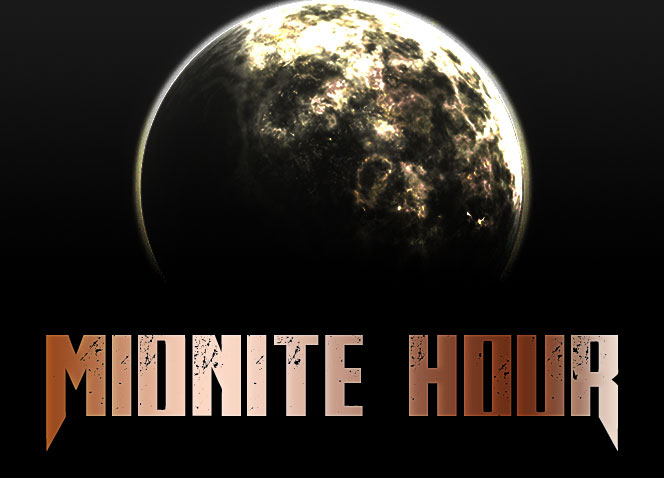
Midnite Hour is a captivating display font designed by Chris Vile, exuding a modern gothic aesthetic with an eroded, condensed appearance. The strong, angular letterforms and intricate textures evoke a sense of gritty sophistication, making it an ideal choice for bold, attention-grabbing designs. Its versatility shines through in various applications, from editorial layouts and book covers to album art and event branding, where its distinct personality can make a lasting impact.
The font's condensed width allows for compact, space-efficient typesetting, while the striking eroded effect lends an edgy, industrial vibe to the overall aesthetic. Midnite Hour's unique character and versatility make it a valuable addition to any designer's toolkit, opening up a world of creative possibilities across a wide range of design disciplines.
Midnite Hour
Chris Vile
Midnite Hour is a font by Fonts by GKDN, designed by Chris Vile in 2013.